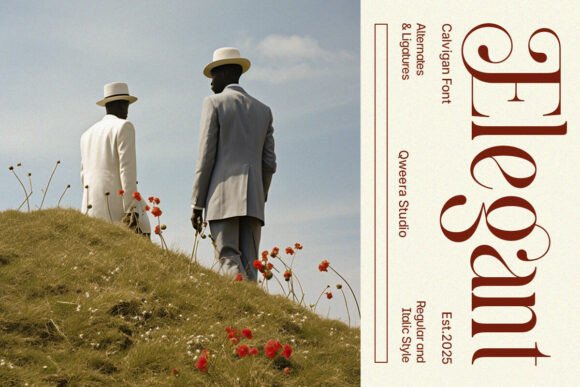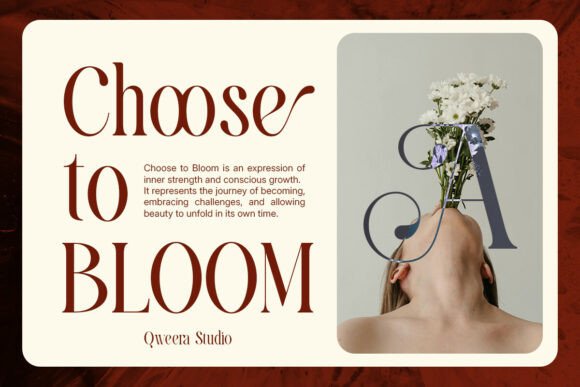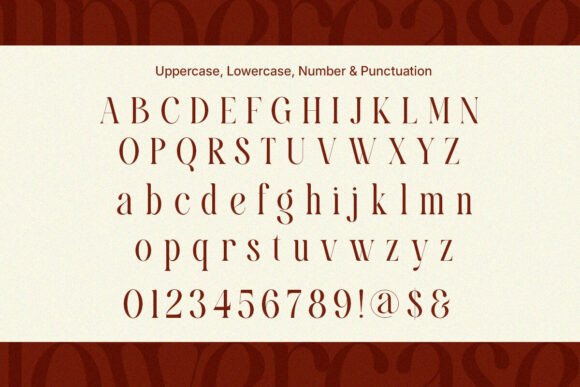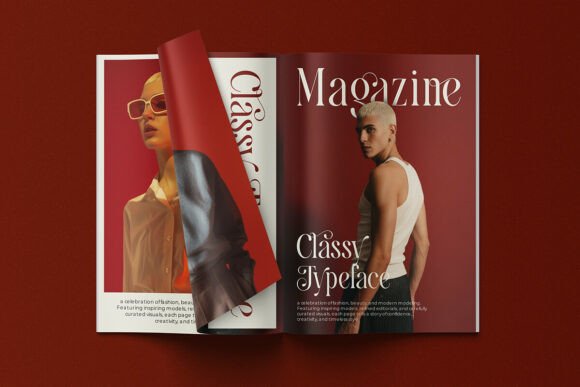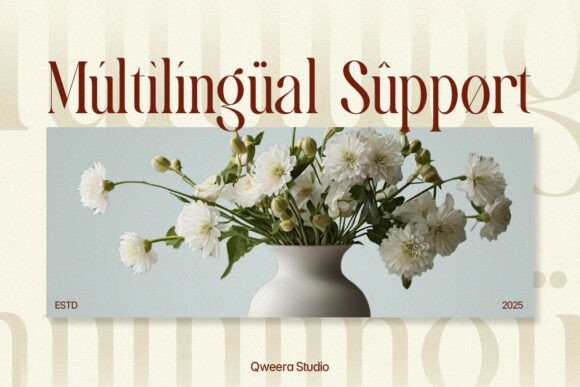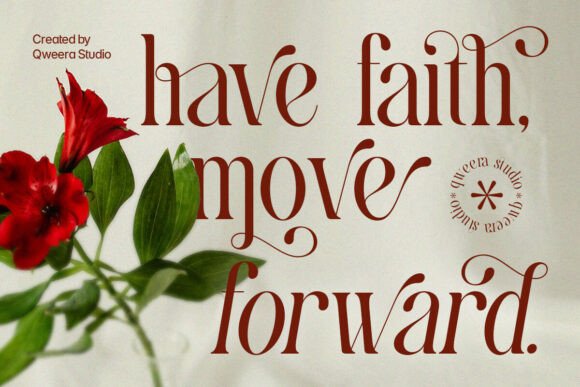
Introducing Calvigan Font: Elevate Your Designs with Modern Elegance
In the world of typography, fonts play a crucial role in shaping the visual identity of a brand. For designers and crafters seeking to create luxurious and feminine designs, Calvigan Font is an excellent choice. This modern elegant serif typeface is specifically built for luxury branding and feminine visual identity, making it perfect for a wide range of creative projects.
The Characteristics of Calvigan Font
Calvigan Font boasts an array of characteristics that set it apart from other typefaces. Its graceful curves, premium proportions, and refined details make it an ideal choice for designers seeking polished and sophisticated typography. The font’s elegant serif design exudes a sense of timeless romance, while its modern twist adds a touch of contemporary elegance.
Ideal Uses for Calvigan Font
Calvigan Font is incredibly versatile and can be used for a variety of design projects, including:
- Logos: Create a lasting impression with a custom logo that showcases your brand’s personality and style.
- Invitations: Make your invitations stand out with elegant and sophisticated typography.
- Wedding Stationery: Add a touch of romance and luxury to your wedding stationery with Calvigan Font.
- Packaging: Elevate your brand’s packaging with refined and premium typography.
- Beauty Brands: Create a cohesive and luxurious visual identity for your beauty brand with Calvigan Font.
Why Choose Calvigan Font?
For designers and crafters seeking polished feminine typography, Calvigan Font is an excellent choice. Its unique blend of timeless romance and modern elegance makes it perfect for premium creative projects. With Calvigan Font, you can:
- Create a luxurious visual identity for your brand or client.
- Add a touch of elegance and sophistication to your designs.
- Stand out from the competition with unique and refined typography.
Tips for Using Calvigan Font
To get the most out of Calvigan Font, consider the following tips:
- Pair it with neutral colors: Let the font be the focal point of your design by pairing it with neutral colors.
- Experiment with font sizes: Play with different font sizes to create visual hierarchy and add depth to your design.
- Add subtle textures: Add subtle textures or patterns to give your design a tactile feel.
Calvigan Font is a stunning modern elegant serif typeface that is perfect for designers and crafters seeking to create luxurious and feminine designs. Its unique blend of timeless romance and modern elegance makes it ideal for a wide range of creative projects. With its refined details, premium proportions, and graceful curves, Calvigan Font is sure to elevate your designs and add a touch of sophistication and elegance.